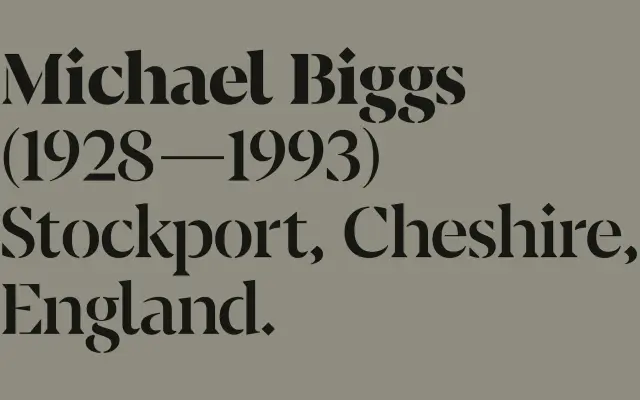
F37 Wicklow Stencil
F37 Wicklow Stencil specimen from F37 Foundry
The stencil companion to F37 Wicklow, with the same Arbour Hill carved-letter roots and breaks suited to signage, supergraphics and architectural work.
A stencil serif by F37 cut from the F37 Wicklow drawing. Twelve Latin styles run across six weights from Light to Black with matching italics, and F37 Wicklow Arabic Stencil extends coverage. The breaks read as architectural rather than industrial, in keeping with the family's roots in Michael Biggs' stone inscriptions on the Arbour Hill Memorial. Use it for signage systems, wayfinding, supergraphic typography and culture or heritage identities that want a carved, monumental voice. Pairs naturally with F37 Wicklow and with F37 Blanka.
The stencil cut of F37 Wicklow, keeping the flared, carved-stone voice of the parent family while introducing breaks suited to signage, supergraphics and architectural settings.
F37 Wicklow Arabic Stencil